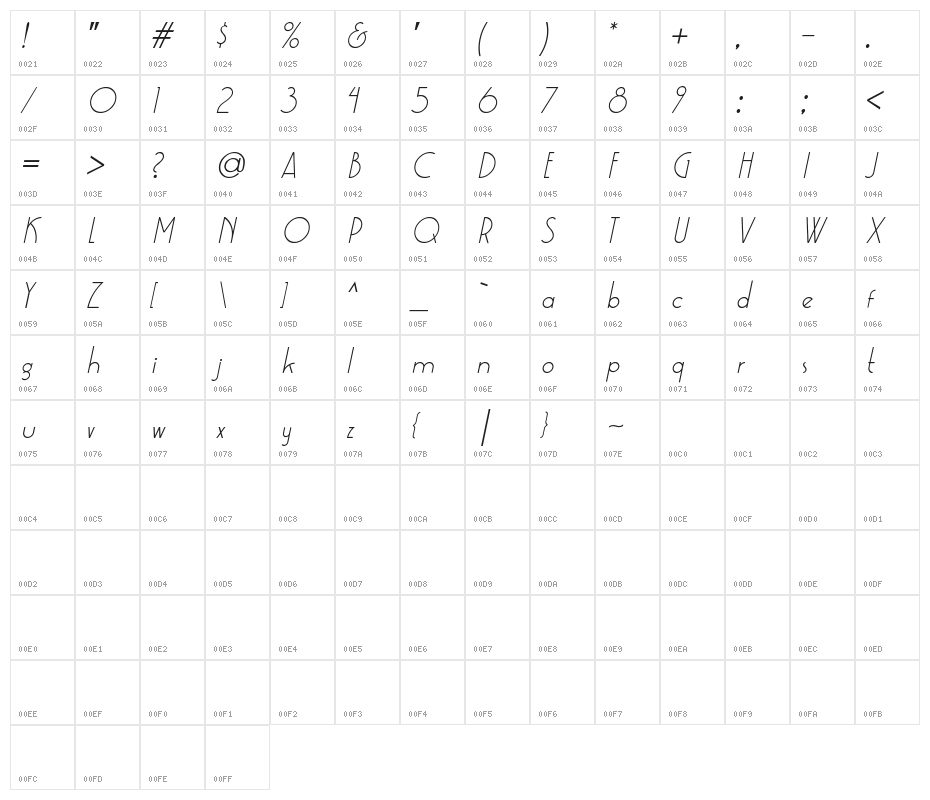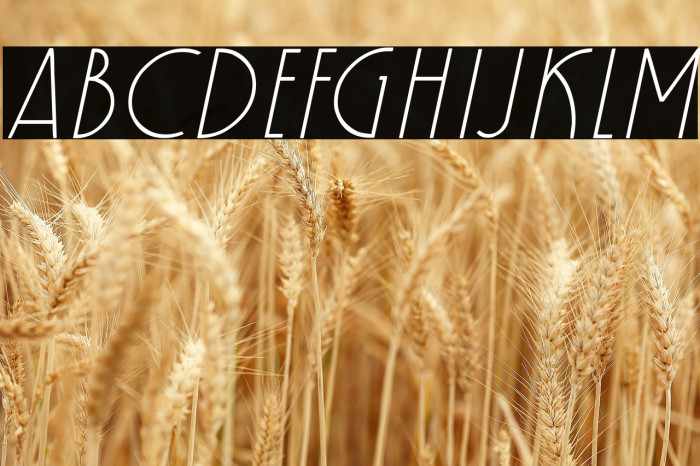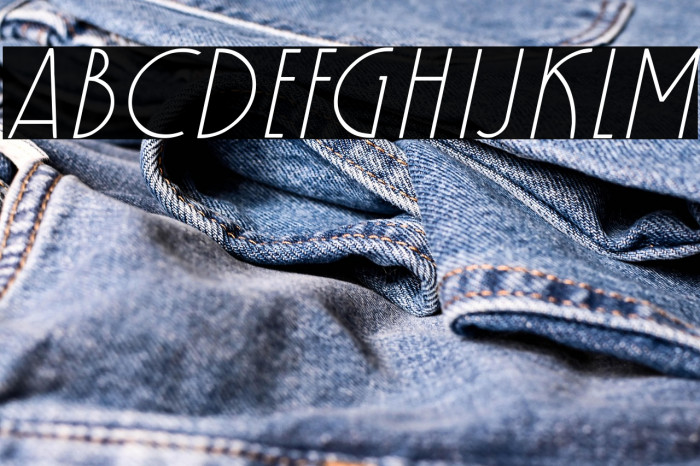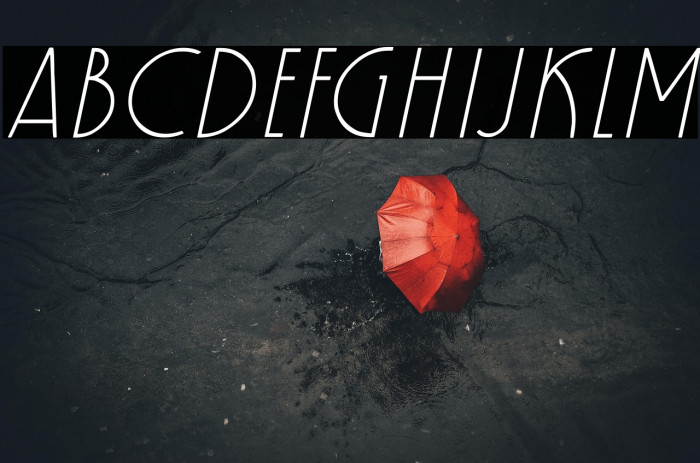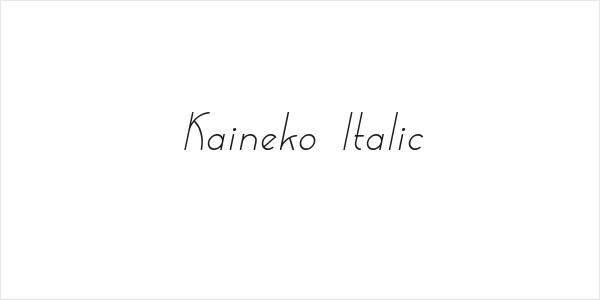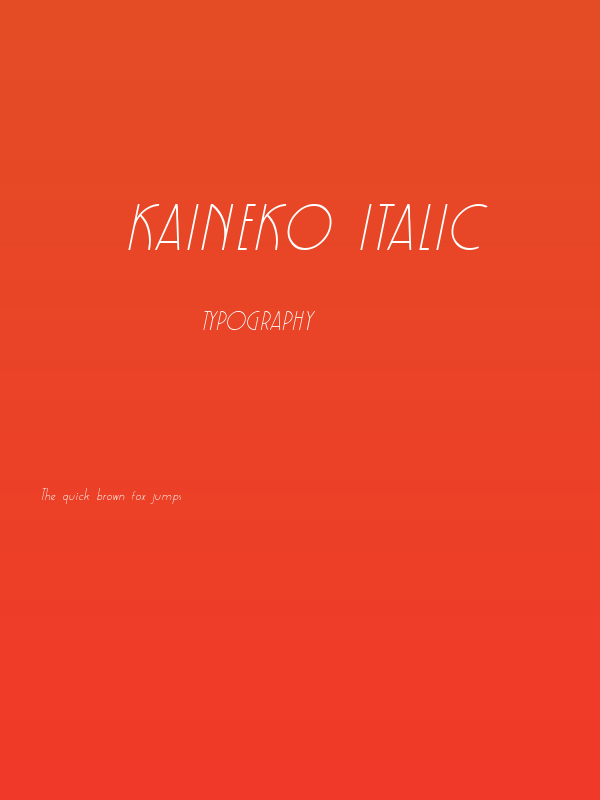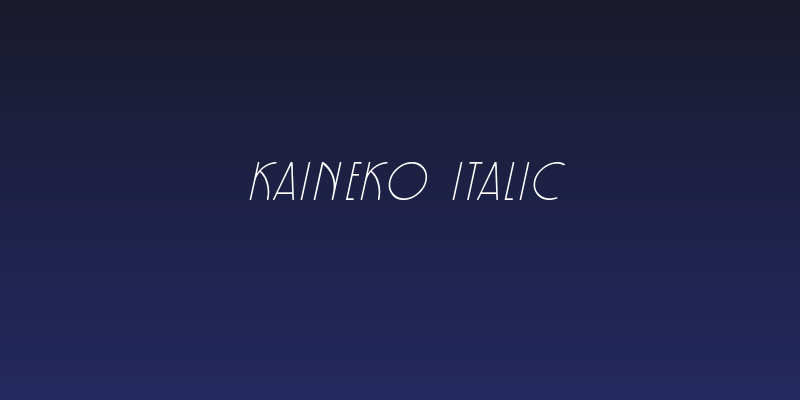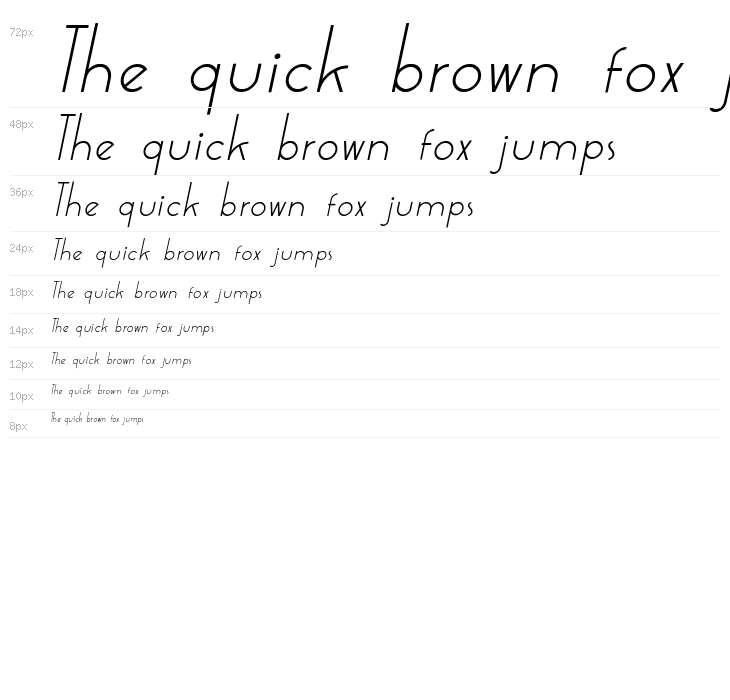
Kaineko Italic Font
Kaineko Italic Description
This font features a sleek, italicized style with elongated and slightly curved letterforms. The characters exhibit a modern and elegant appearance, with a consistent slant that adds a sense of motion and fluidity. The strokes are thin and uniform, contributing to a clean and sophisticated look. The font maintains a balanced proportion between the height and width of the characters, ensuring readability while preserving its stylish aesthetic. The numerals and special characters are designed to complement the alphabet, maintaining the same graceful and streamlined design.
Use CaseHeadlines, Logos, Invitations
Proposed ProjectsIdeal for fashion magazines, luxury branding, elegant invitations, and modern website headers.